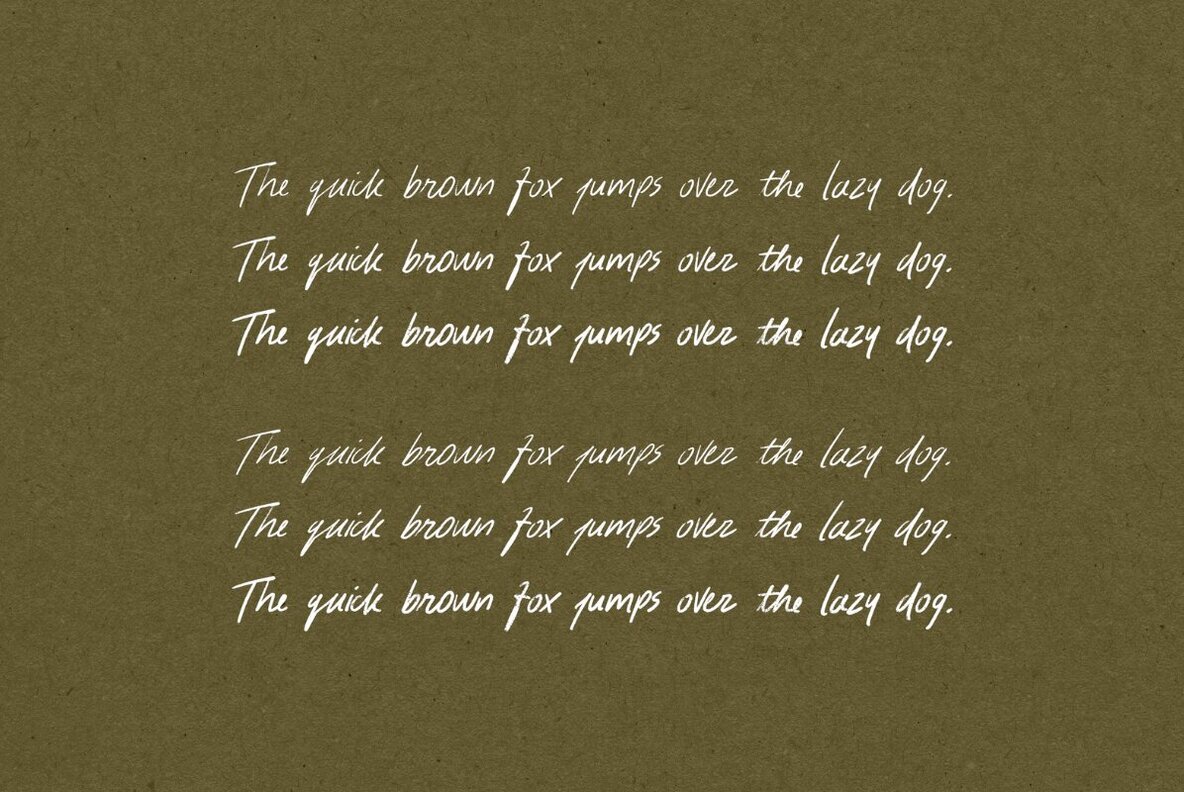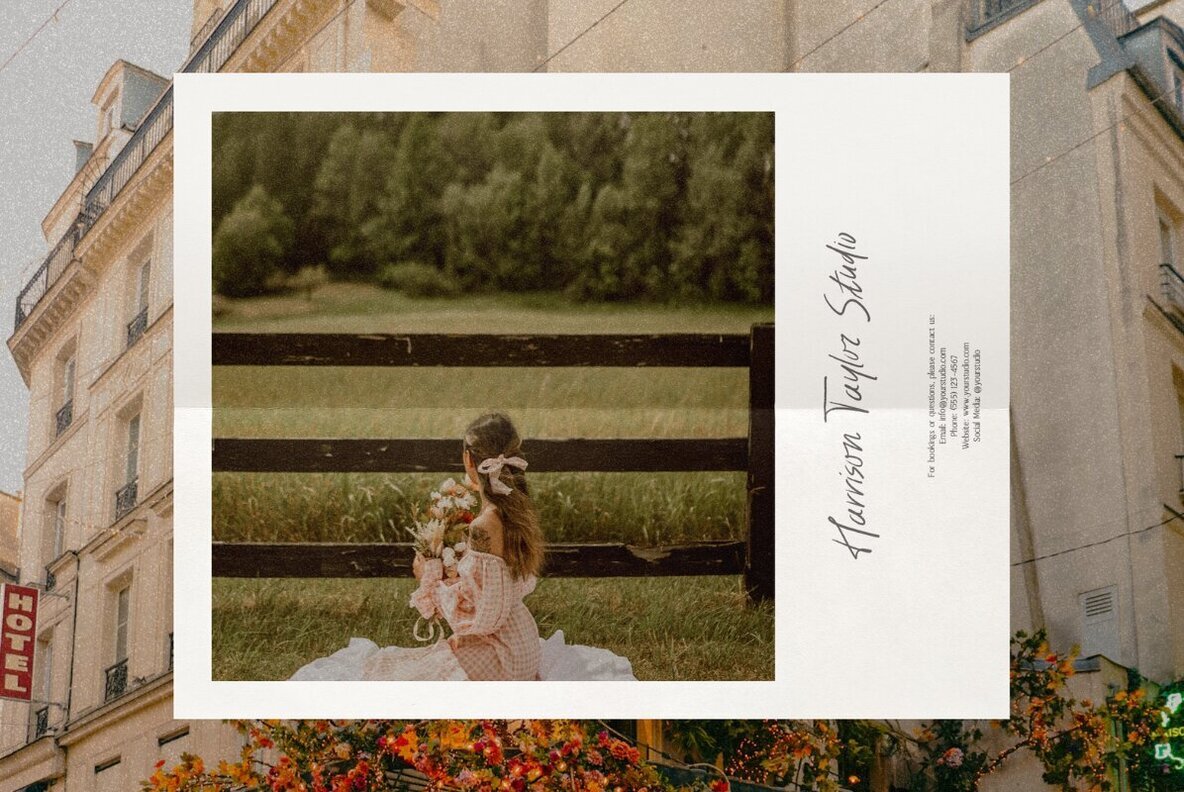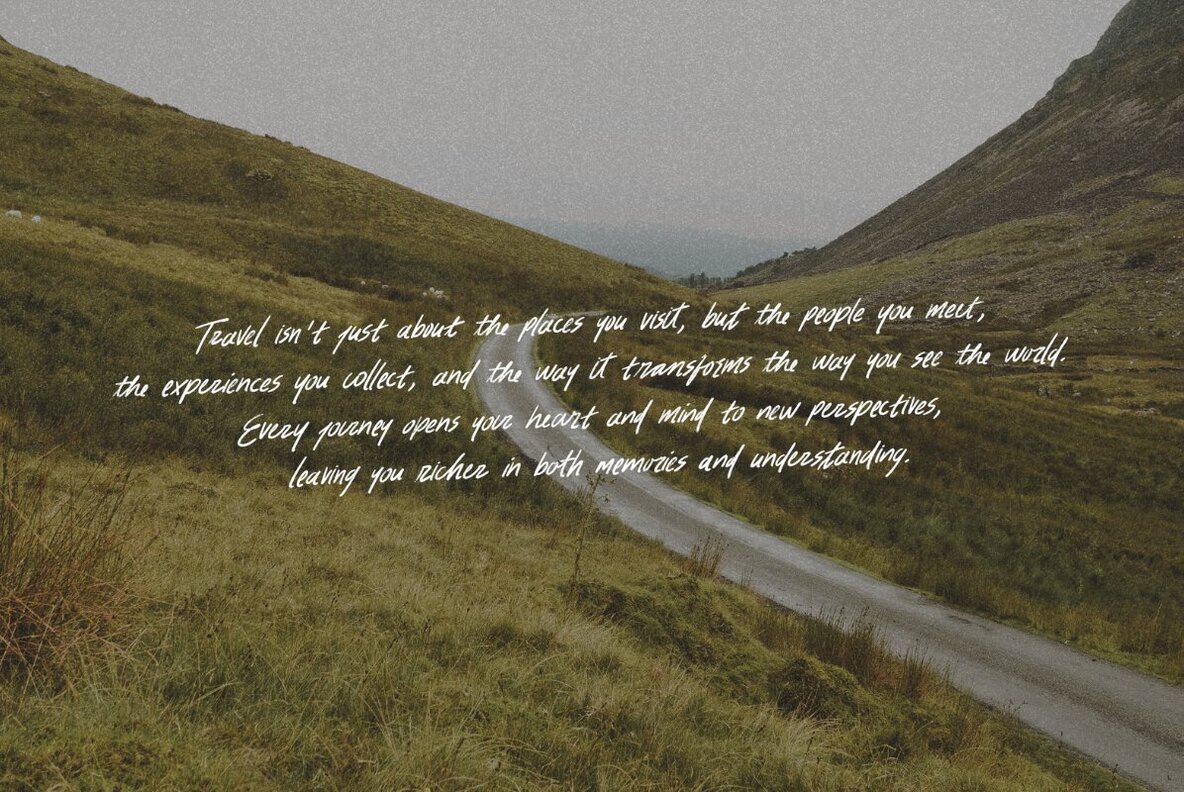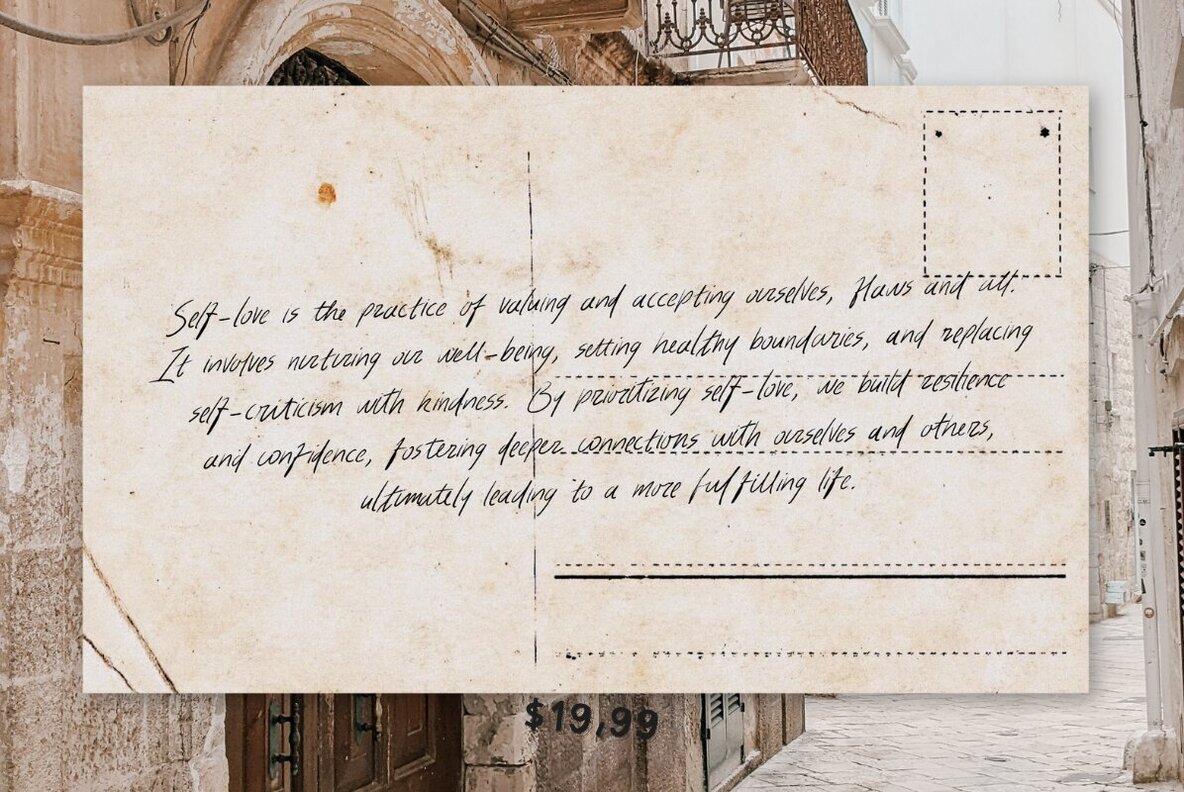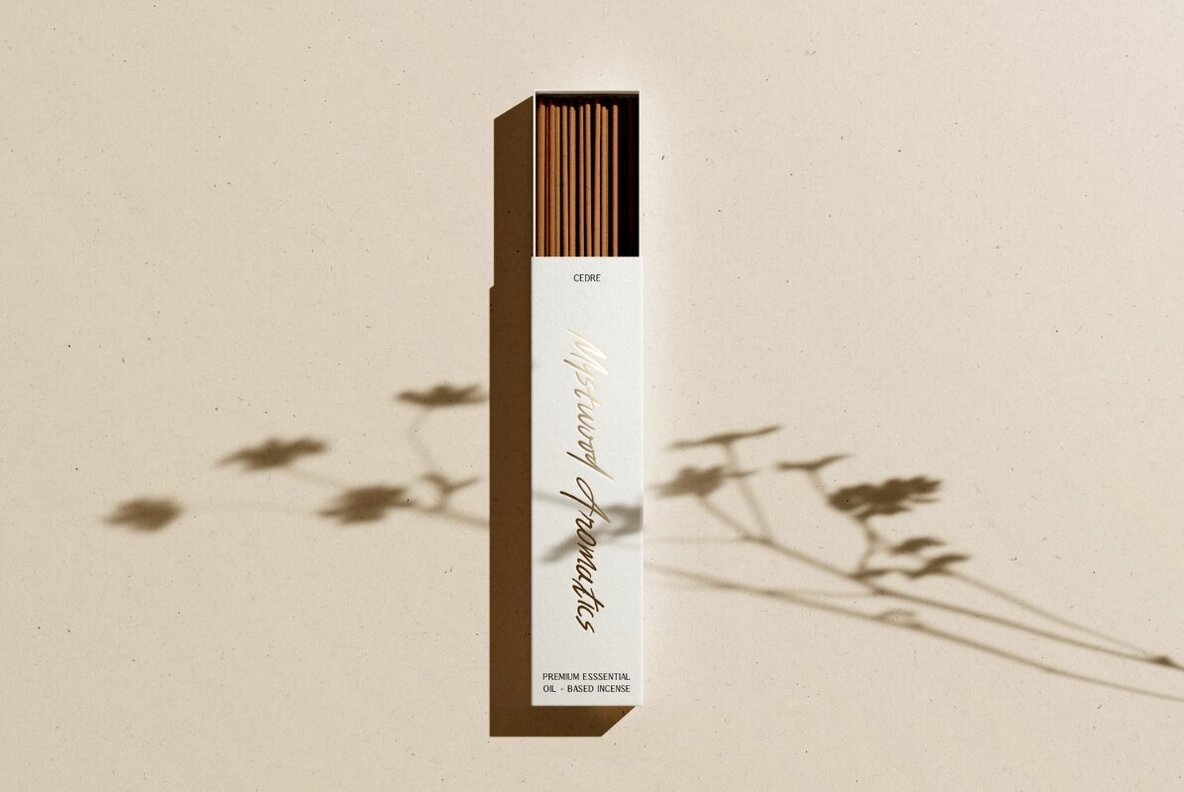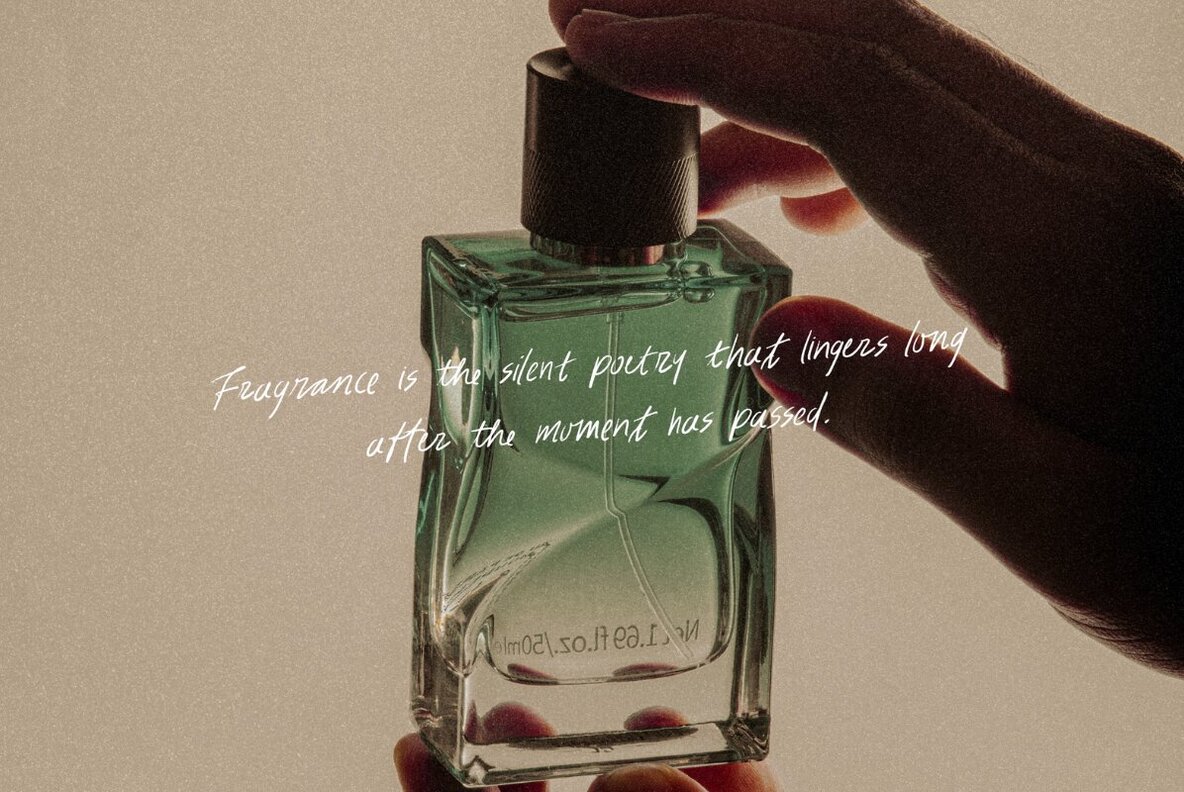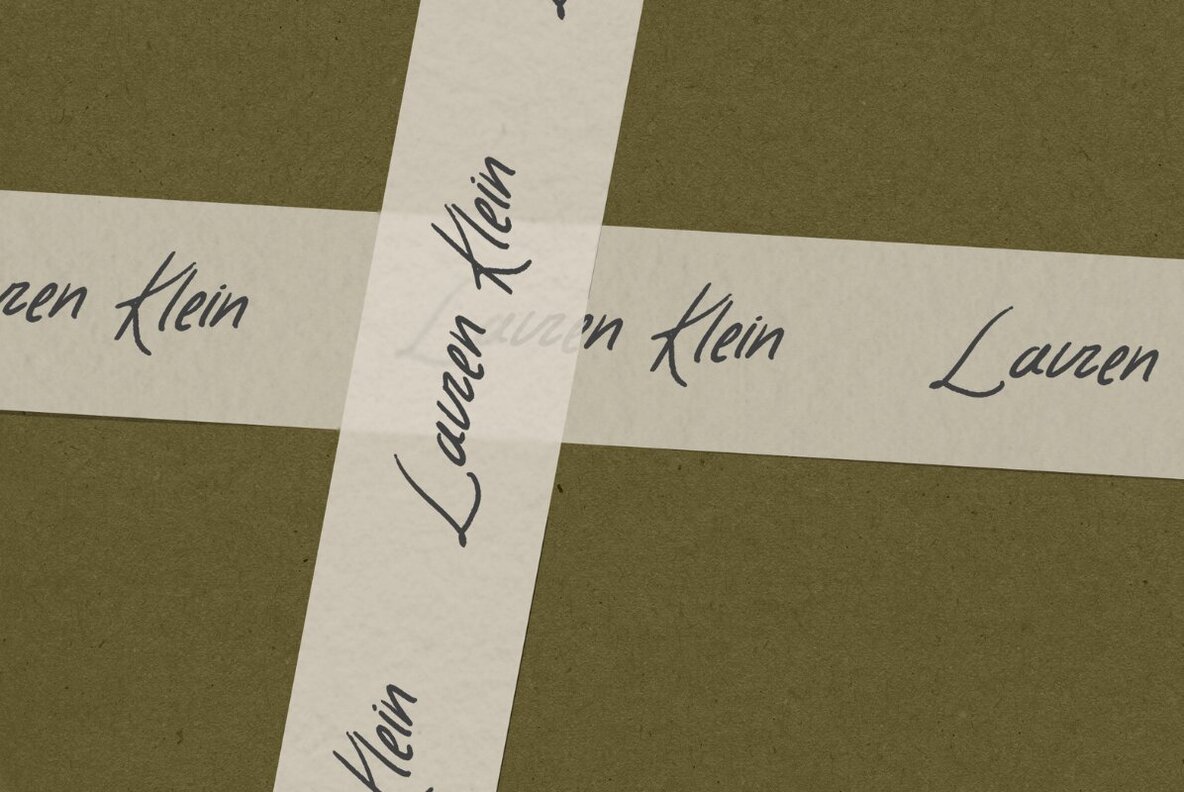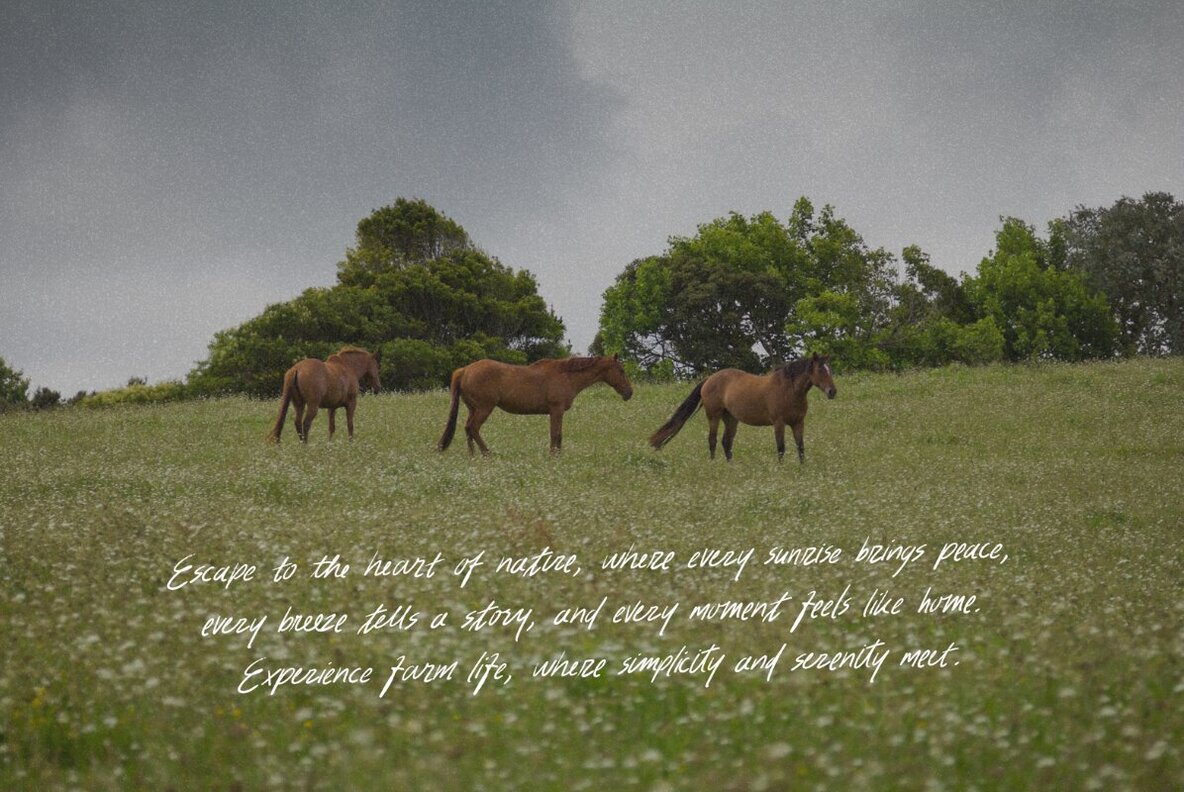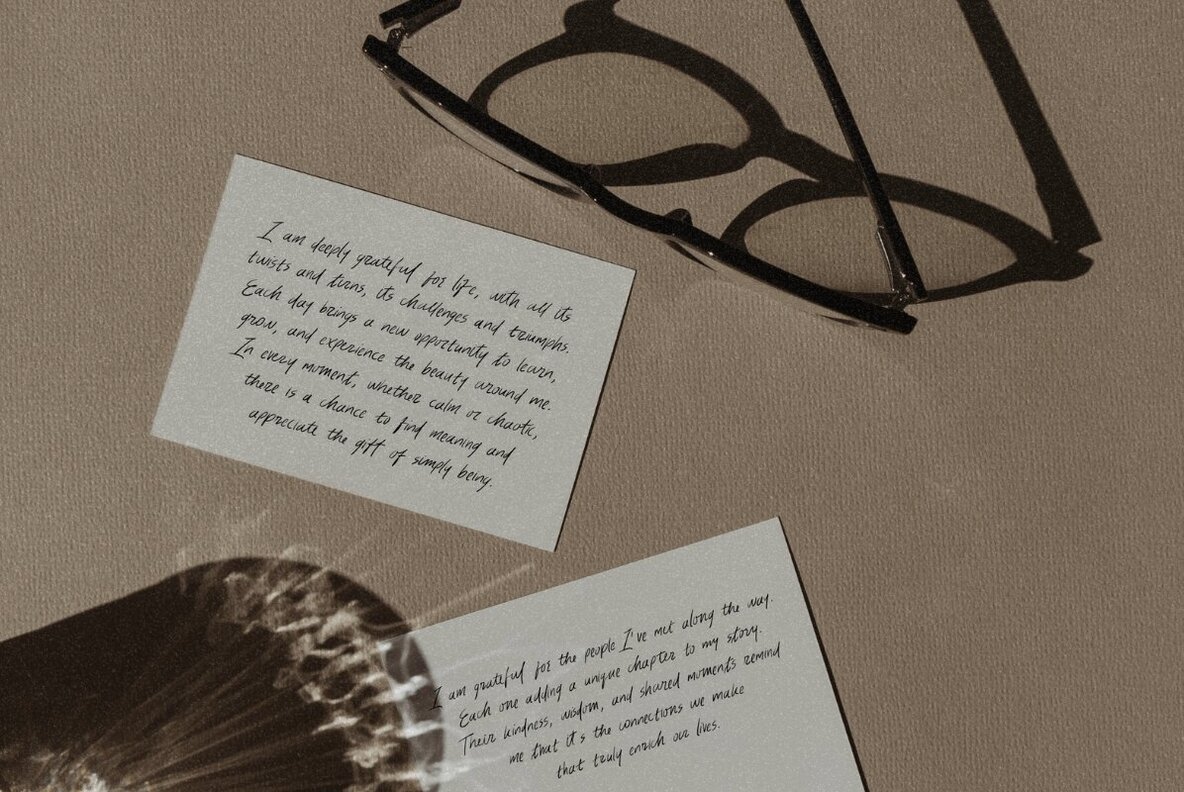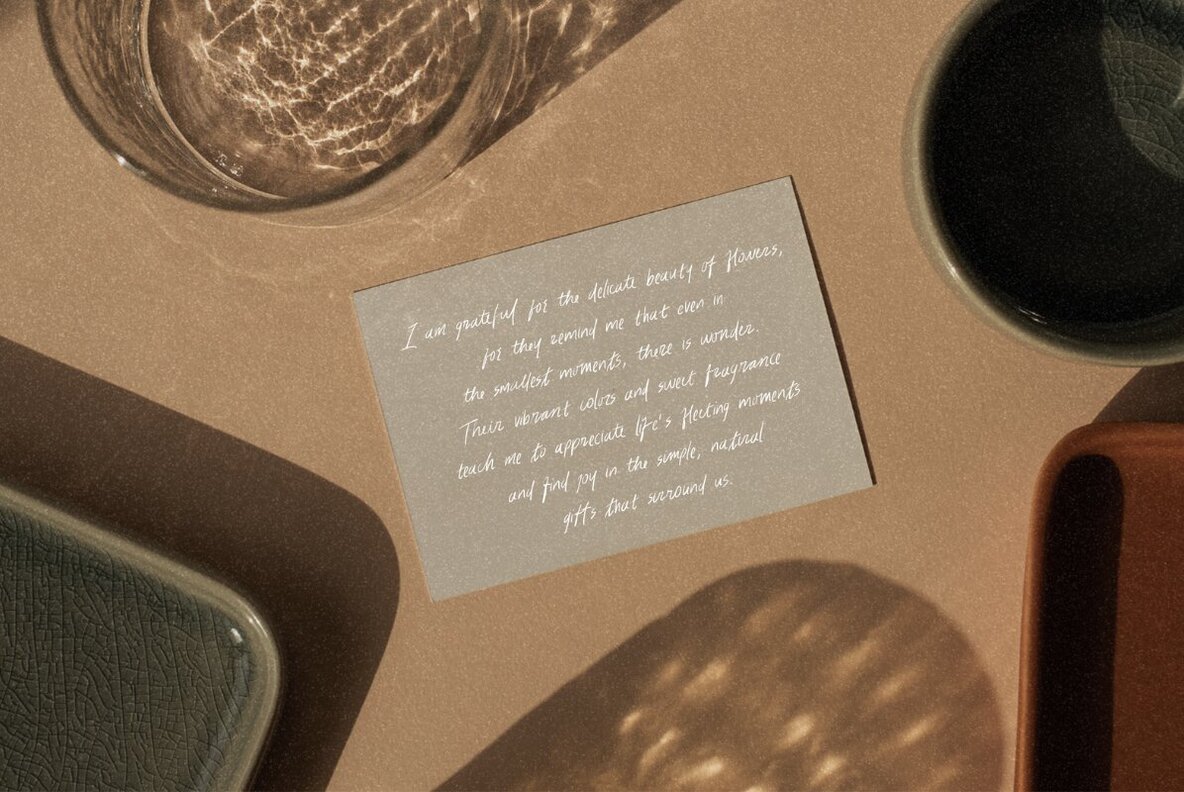
Thursday Morning Font
Thursday Morning Regular
Thursday Morning Regular Slanted
Thursday Morning Medium
Thursday Morning Medium Slanted
Thursday Morning Bold
Thursday Morning Bold Slanted
Introducing Thursday Morning, a gracefully handwritten font designed to add warmth and elegance to your projects. With its natural charm and heartfelt personality, this typeface is perfect for those looking to convey authenticity and creativity. Key Features: Versatile Styles: Available in 3 weights (Regular, Medium, Bold) with slanted versions of each weight, for a total of 6 styles, Thursday Morning offers flexibility for everything from minimalistic designs to bold, expressive compositions. Pencil Texture: The font includes a subtle pencil texture, adding a handcrafted, organic feel to your designs. Multilingual Support: Effortlessly connect with a global audience with built-in support for multiple languages. Expressive Alternates: Featuring 3 sets of alternates, Thursday Morning lets you add personal flair with just a keystroke. Contextual Alternates OpenType Feature: This smart feature automatically switches between alternates as you type, giving your text a naturally handwritten appearance without extra effort. Ideal for logos, invitations, stationery, branding, social media graphics, product packaging, and more, Thursday Morning brings warmth and sophistication to any creative endeavor. Make your designs unforgettable with this heartwarming, versatile font.